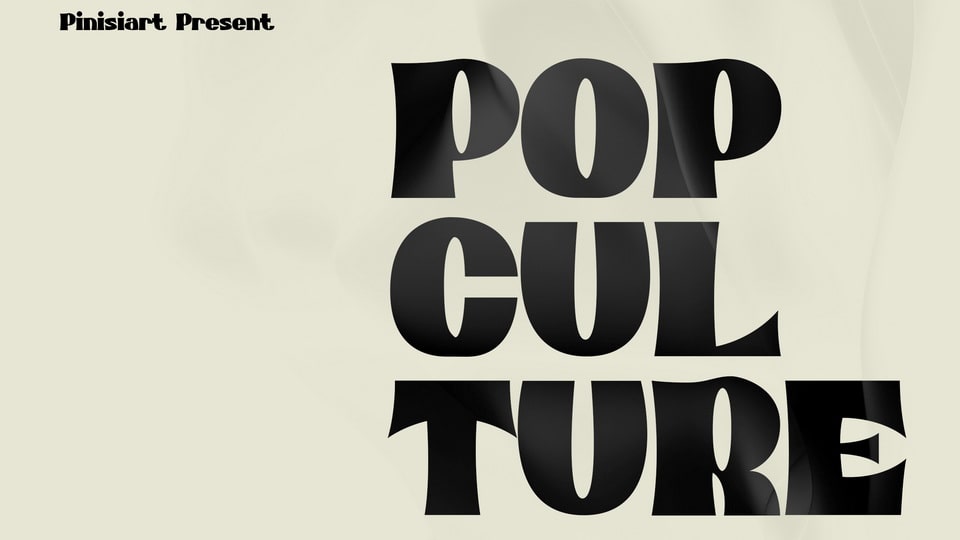
Download Pop Culture font, a classic display typeface. Say what you say, but in a bold and elegant way. Pop Culture will provide you, with a classy but still straight point looks.